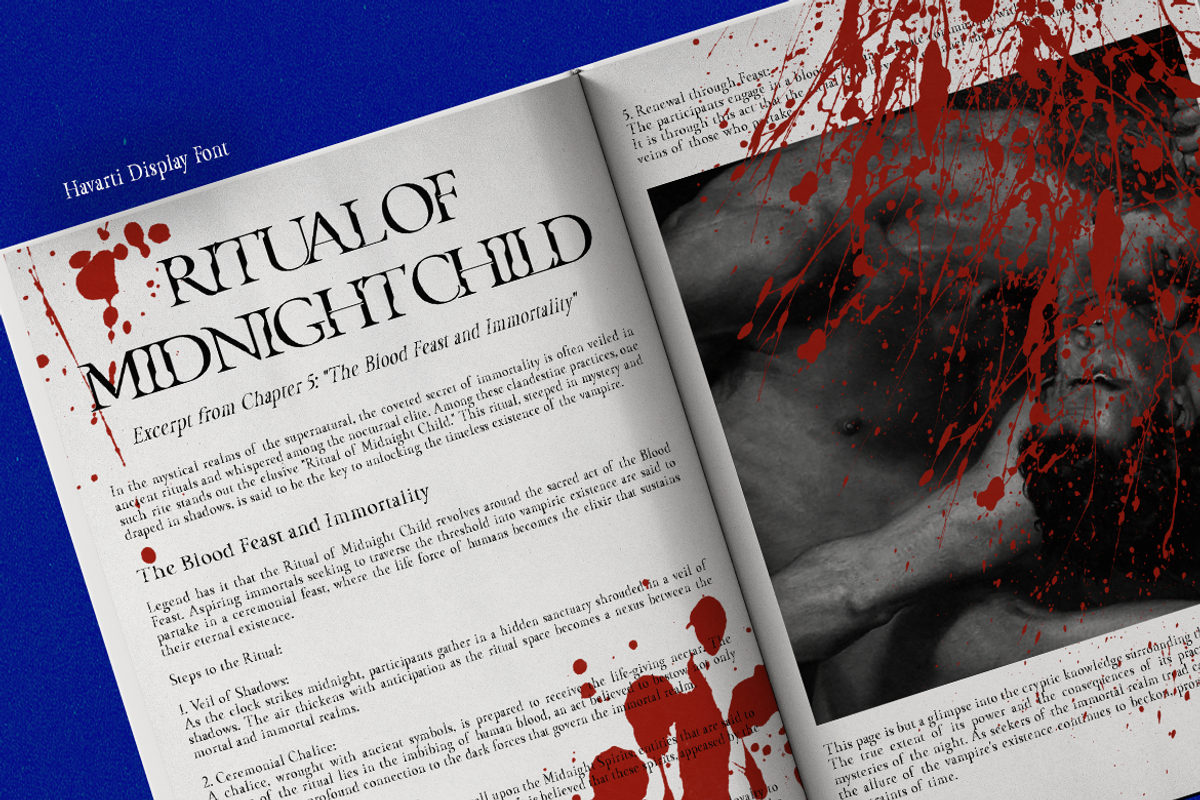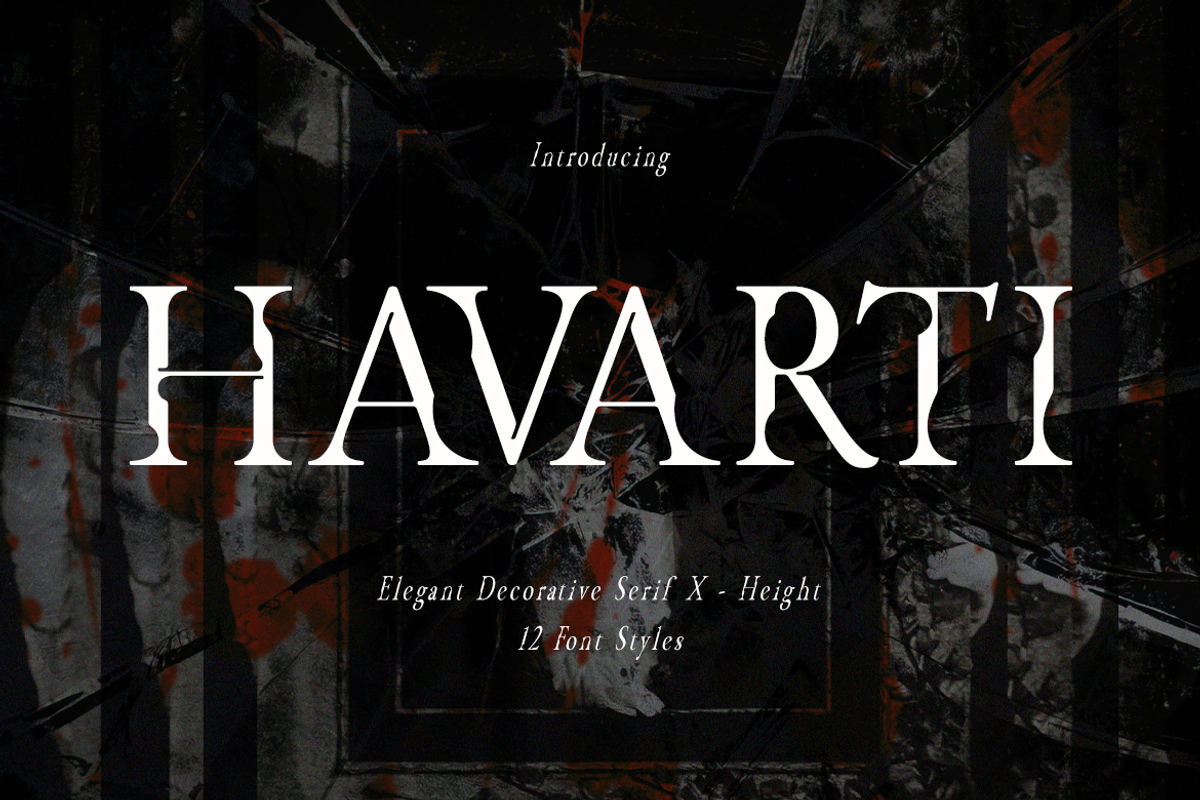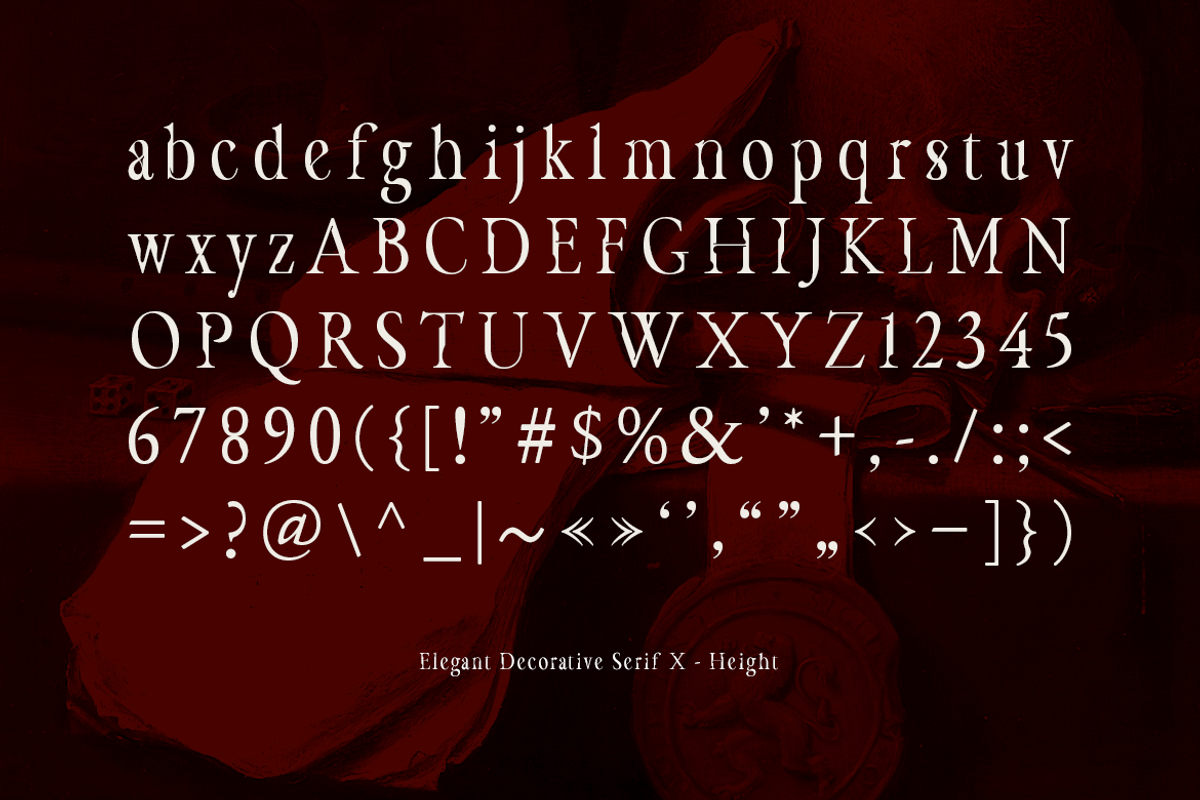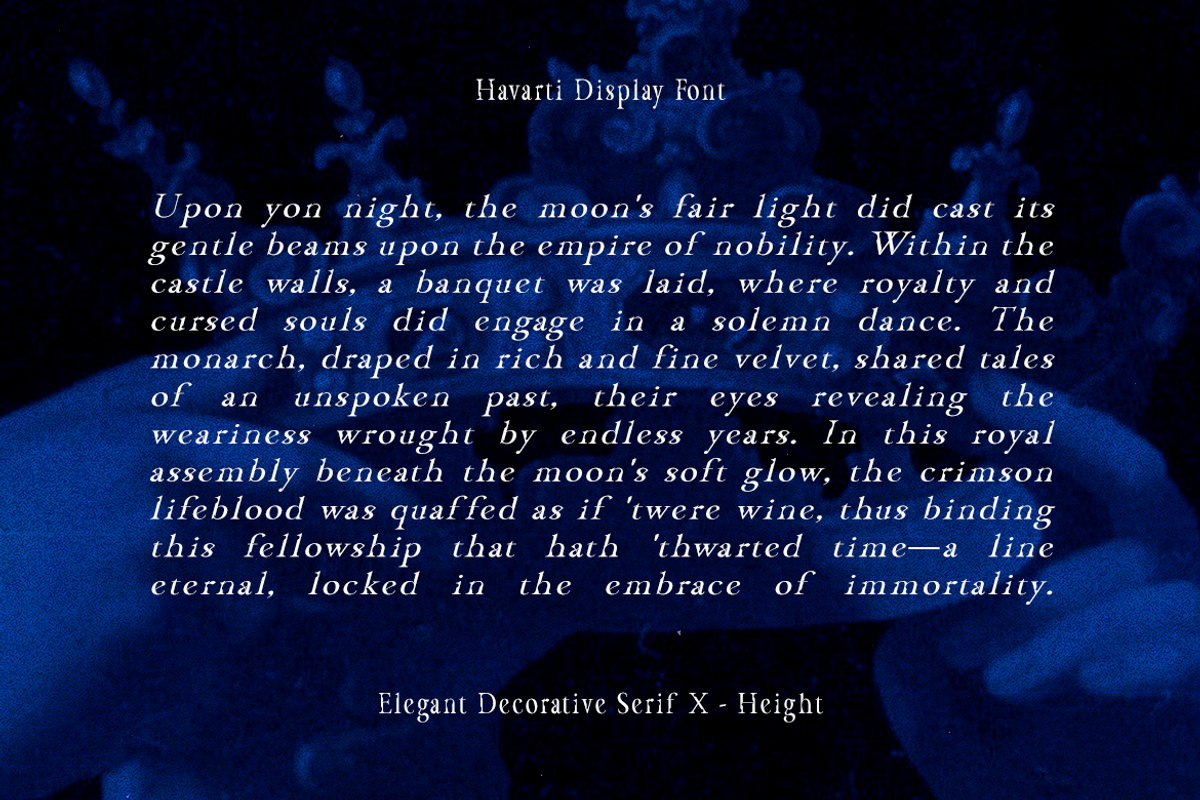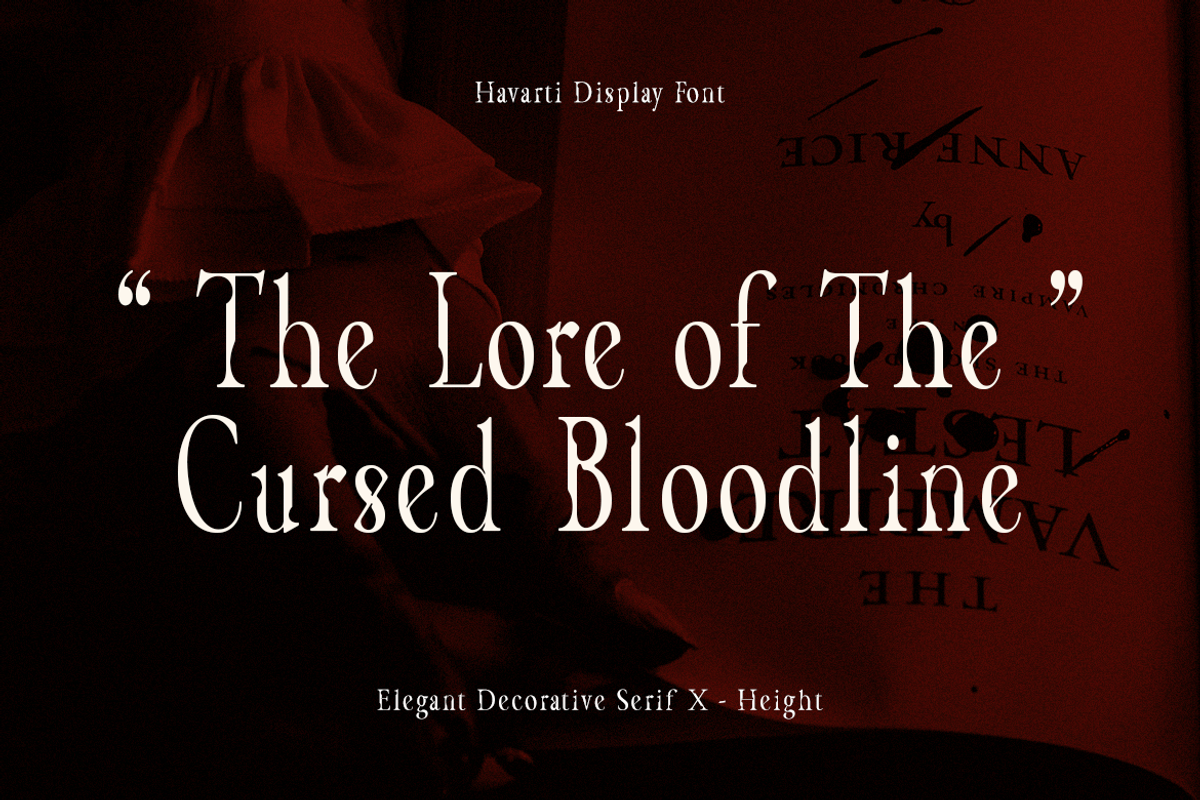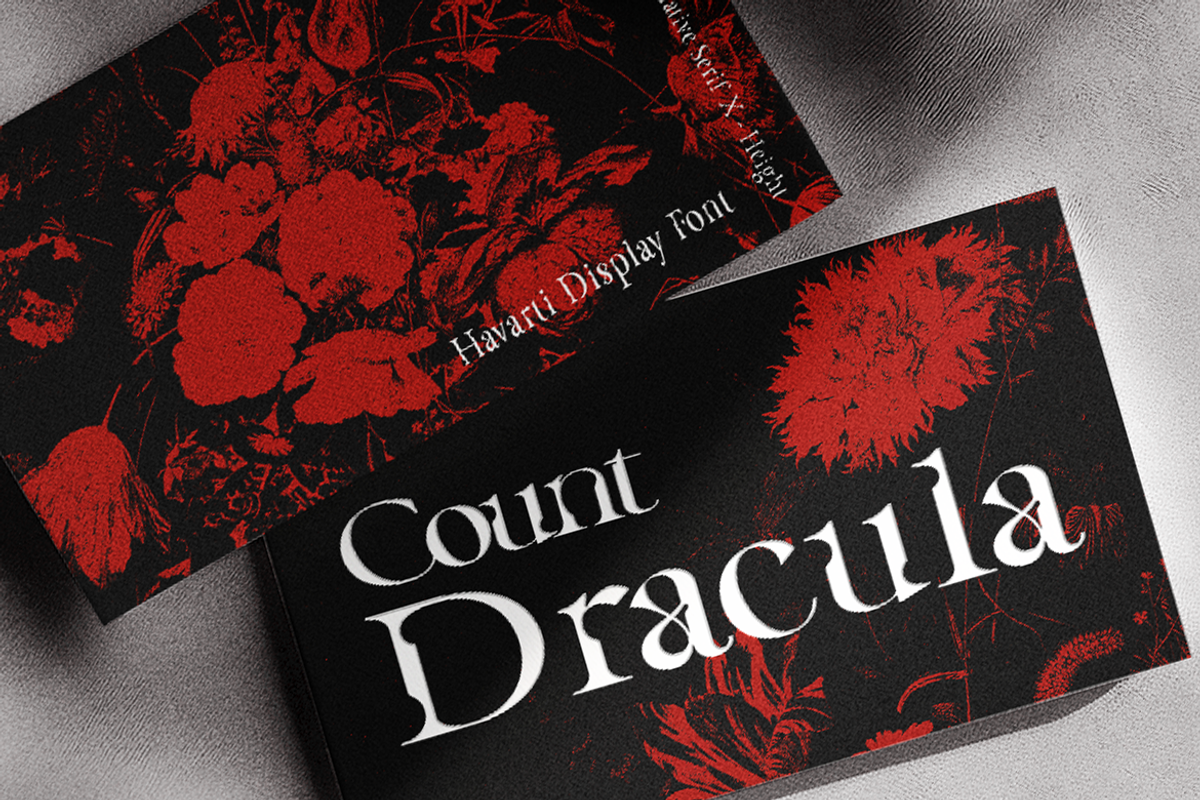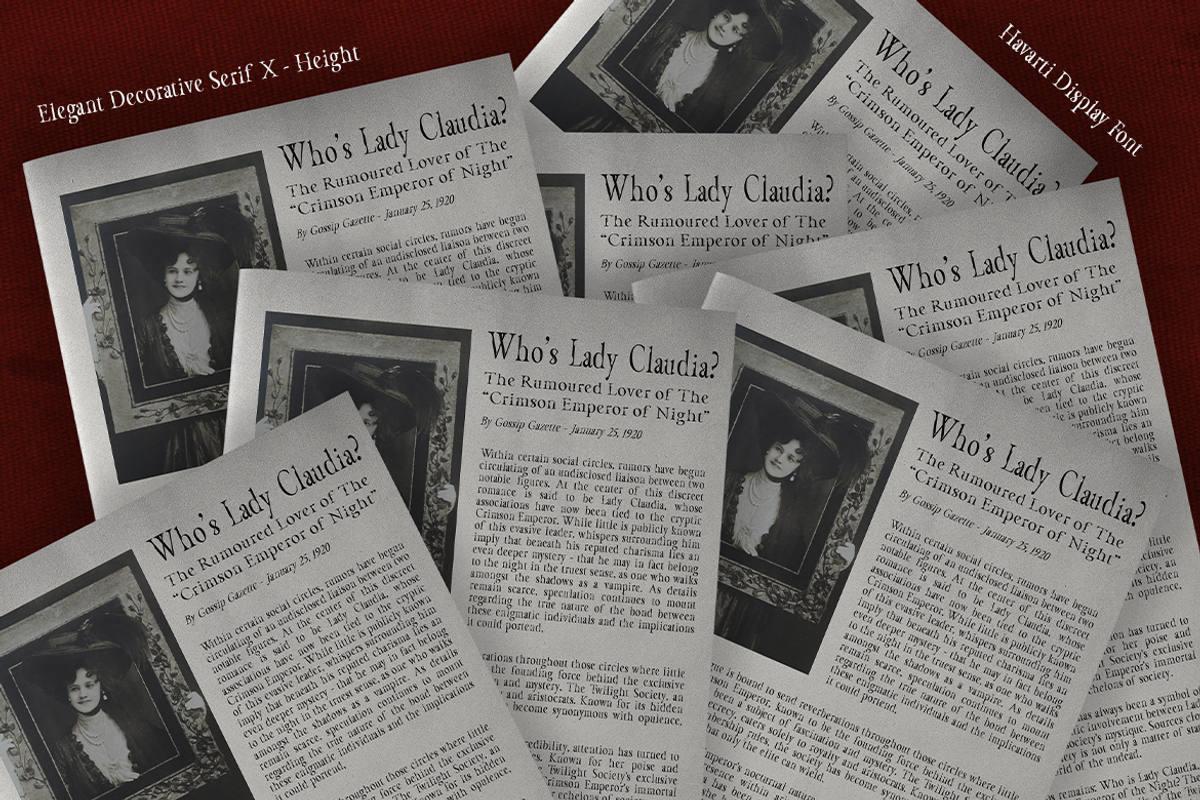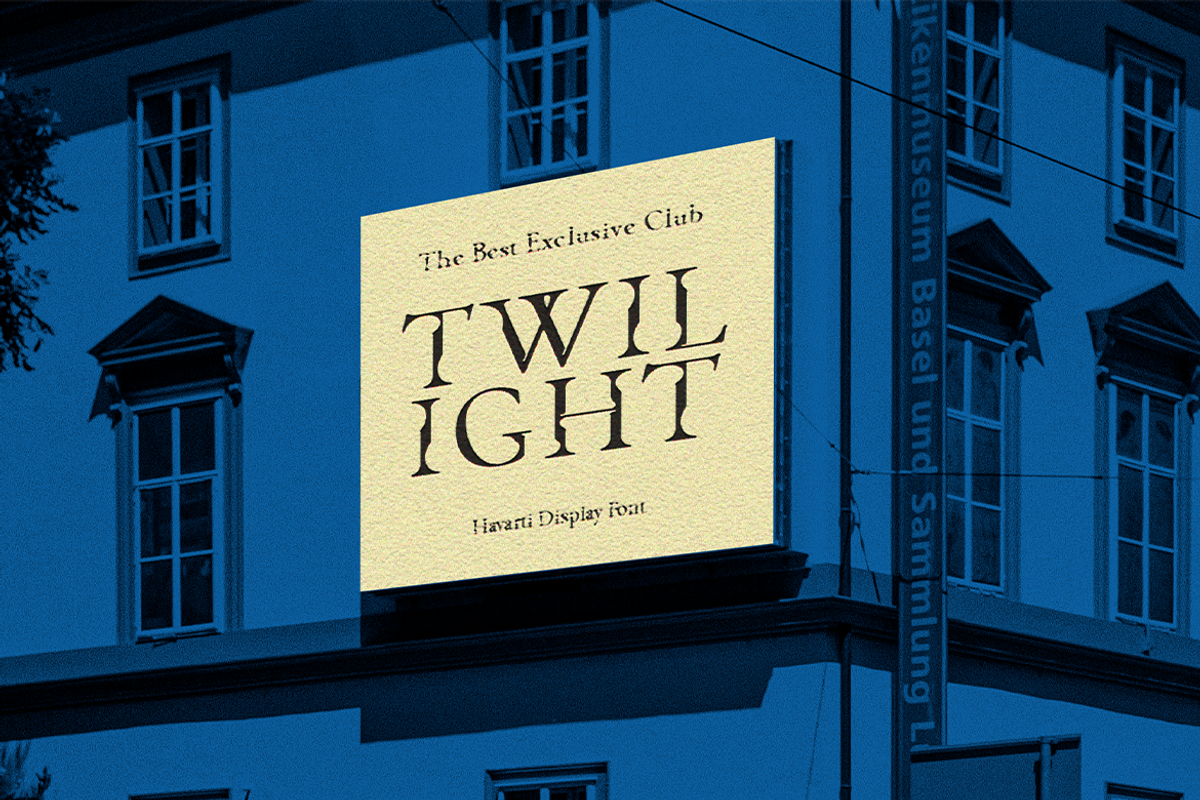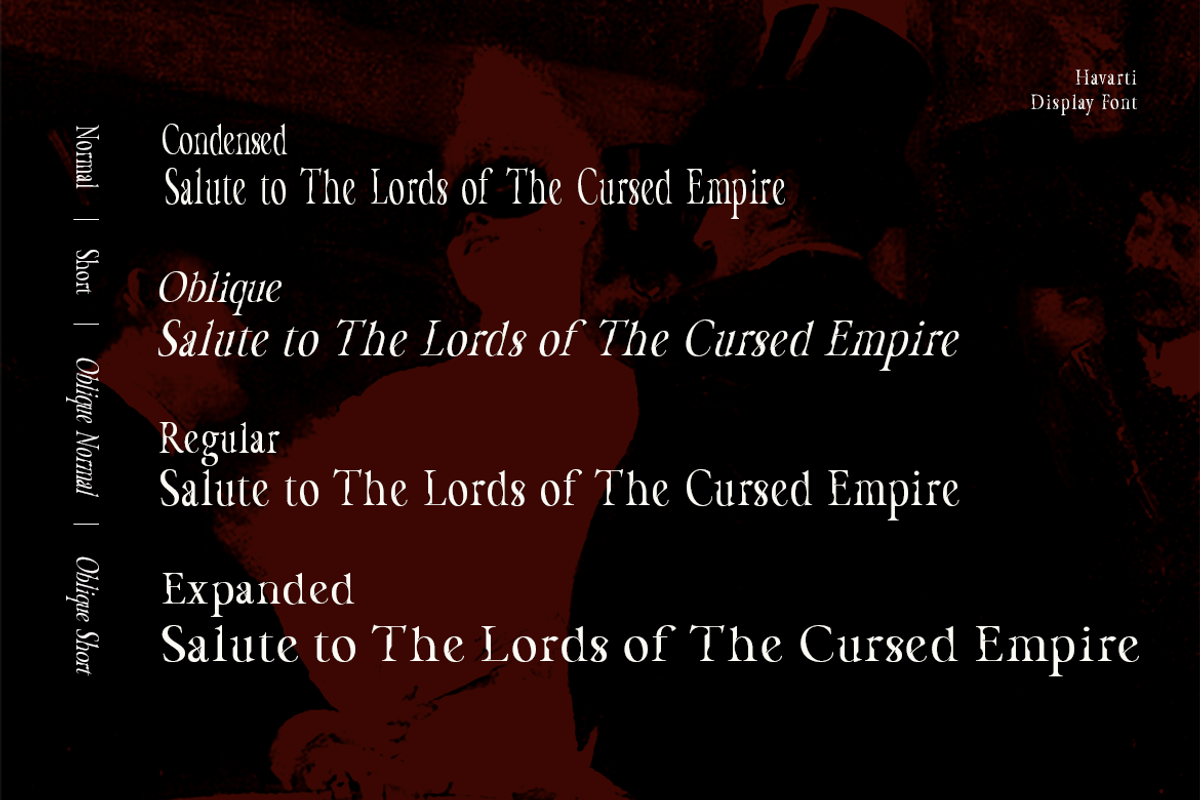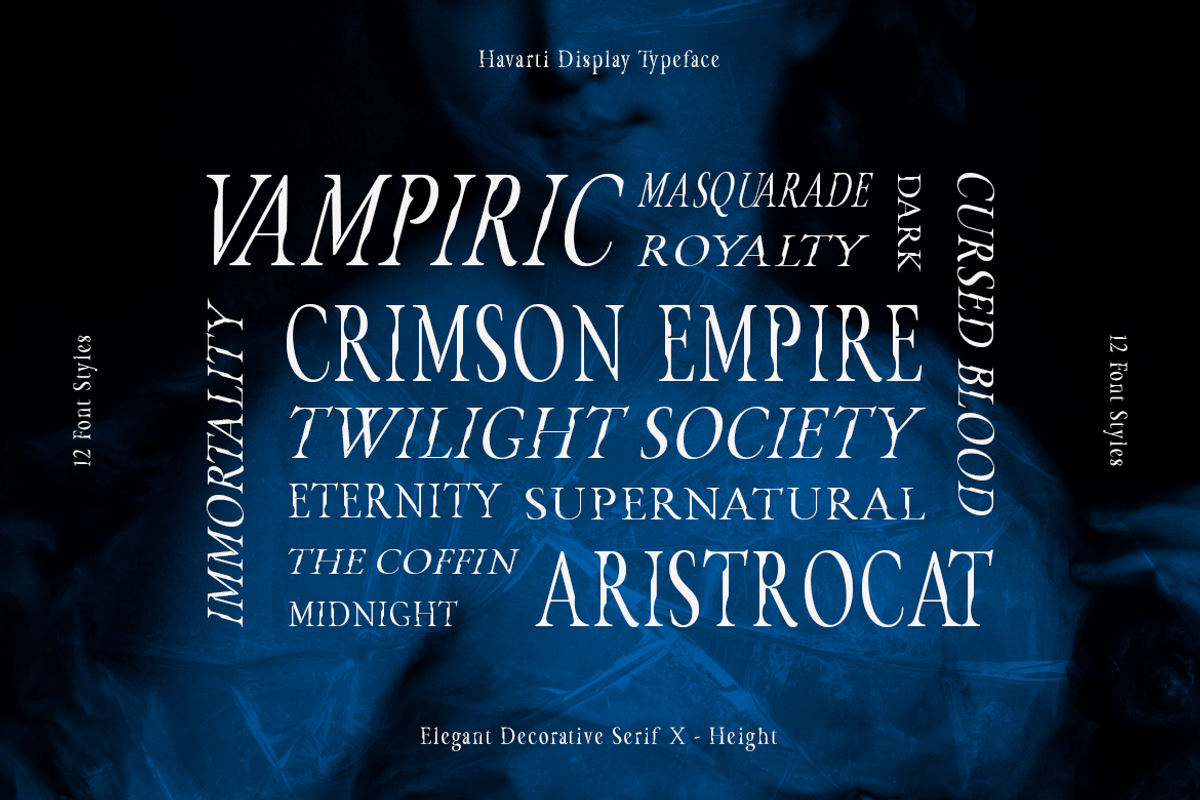
CF Havarti - Modern Serif
Havarti- Havarti is a captivating serif font offering a unique combination of classic elegance and contemporary flexibility. With its distinct x-height variations (normal and tall) and three width options (expanded, regular, and condensed), Havarti empowers you to tailor your text to perfectly match your design vision. Havarti's versatility, captured in the image's diverse presentations, makes it a maestro of typography for various design projects:
- Logos and branding: Create memorable brand identities with Havarti's impactful presence and adjustable styles, as showcased in the image.
- Editorial and book design: Deliver exceptional readability and elegance to your publications with Havarti's classic serif style and variable x-height options, like the ones displayed in the image.
- Marketing materials: Craft eye-catching brochures, posters, and social media graphics with Havarti's ability to command attention and convey information effectively, evident in the image.
- Web design: Enhance the user experience of your website with Havarti's clear and adaptable letterforms that scale beautifully for various screen sizes, like in the image.
- 12 Styles Font, normal, short, oblique, expanded, regular, condensed